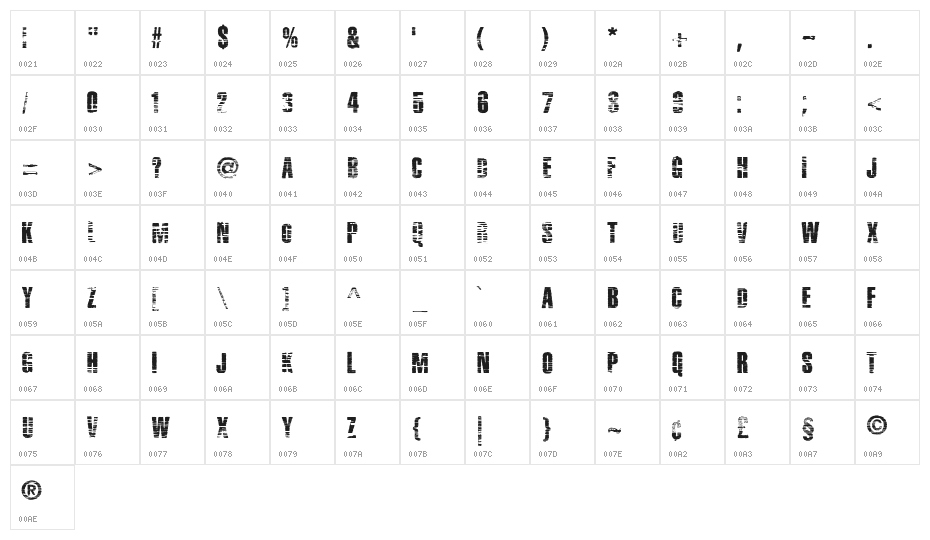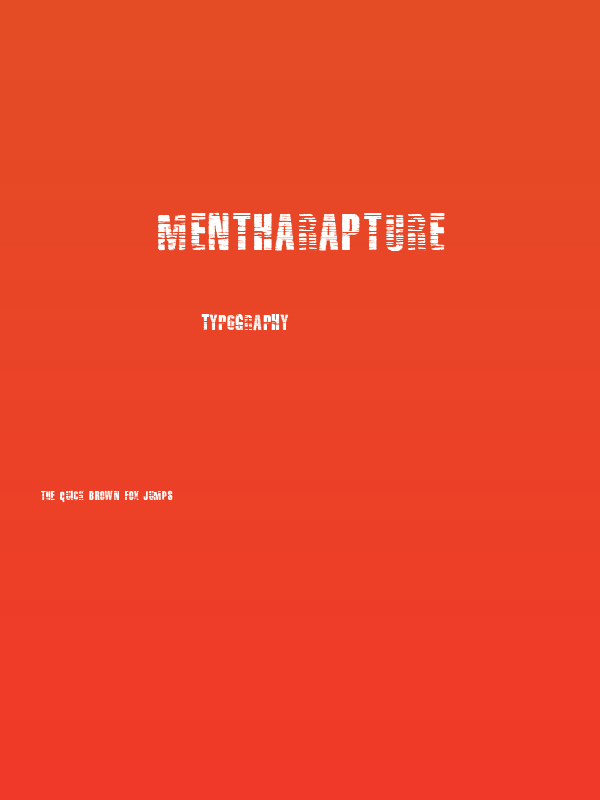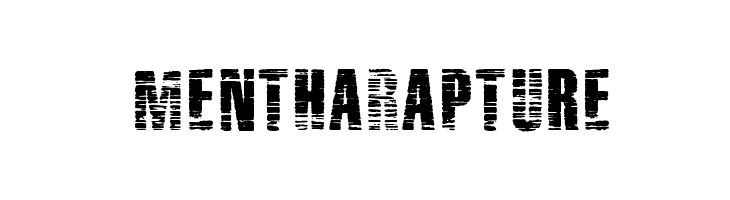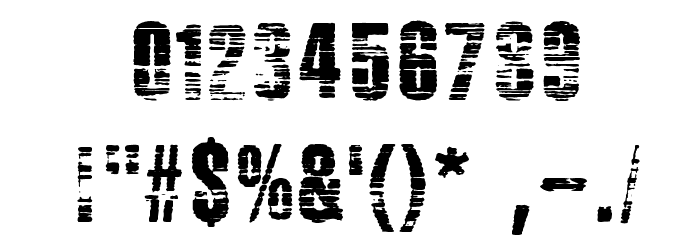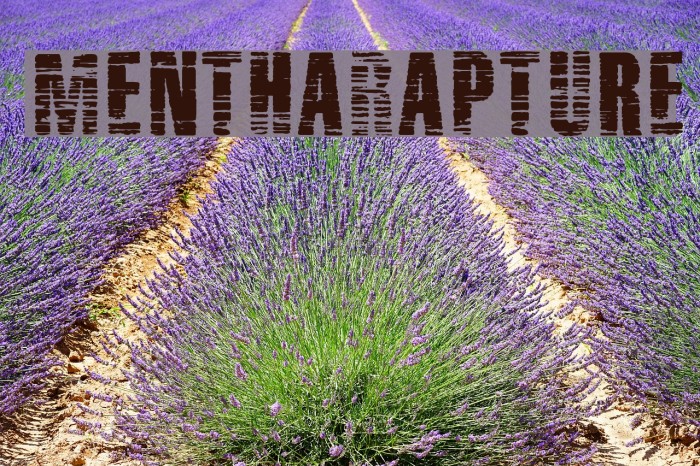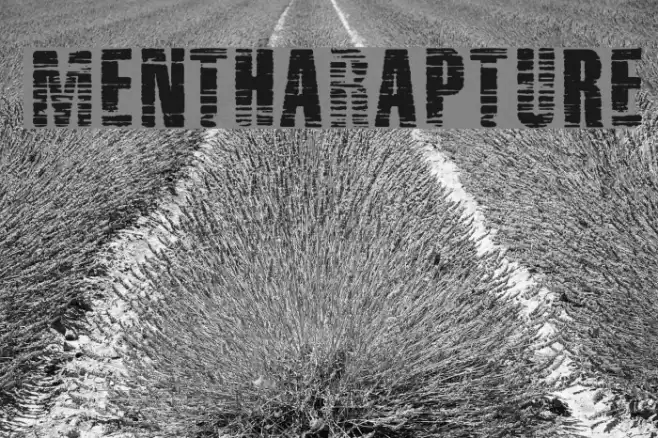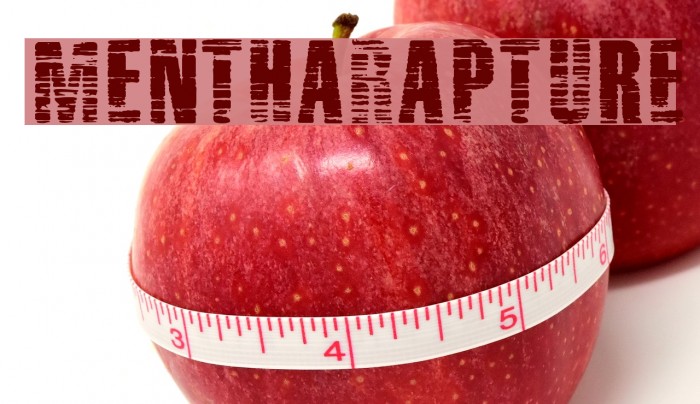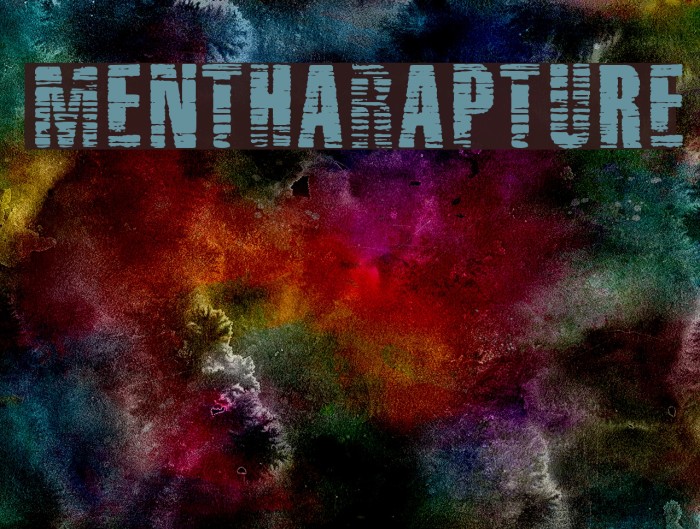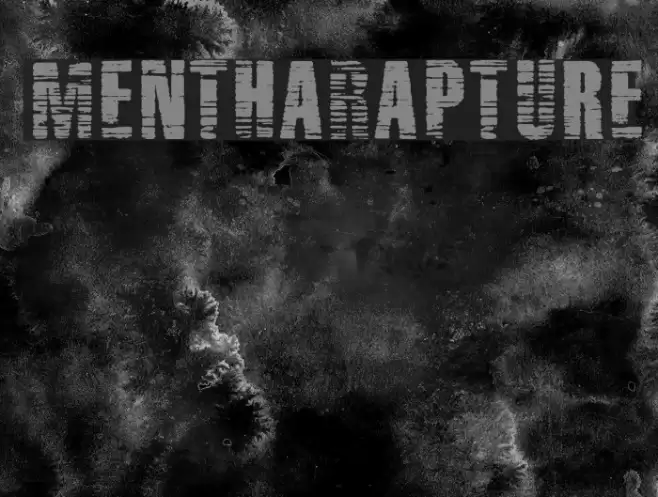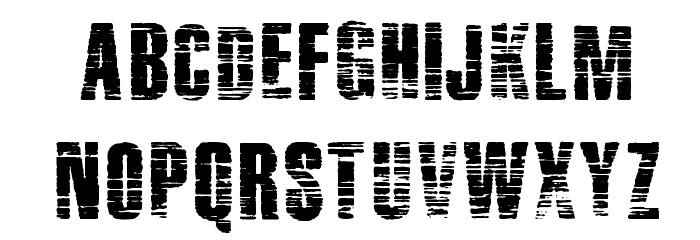
MenthaRapture Font
MenthaRapture Description
This font features a bold, distressed style with a textured appearance that gives it a rugged and worn look. The characters are uppercase and have a consistent height, with a slightly condensed width. The distressed effect is achieved through irregular horizontal lines that cut through each letter, creating a sense of movement and energy. This font is highly decorative and stands out with its unique, grunge-inspired aesthetic. It is ideal for projects that require a bold statement or an edgy, urban feel. The numbers and special characters maintain the same distressed style, ensuring consistency across all elements.
| Overall Style | Grunge, Urban |
| Proposed Projects | Ideal for posters, album covers, streetwear branding, and event flyers. |